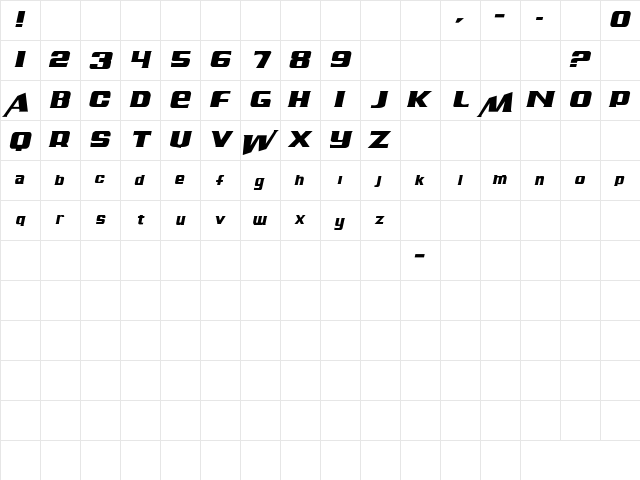
Air Millhouse Italic Italic
| Designer | Dennis Ludlow |
Design Context for Air Millhouse Italic Typeface
Air Millhouse Italic offers clean, dependable letterforms without strong stylistic allegiance, making it a practical choice for designers who need flexibility. The dynamic lean of this cut emphasises speed and emphasis in any layout.